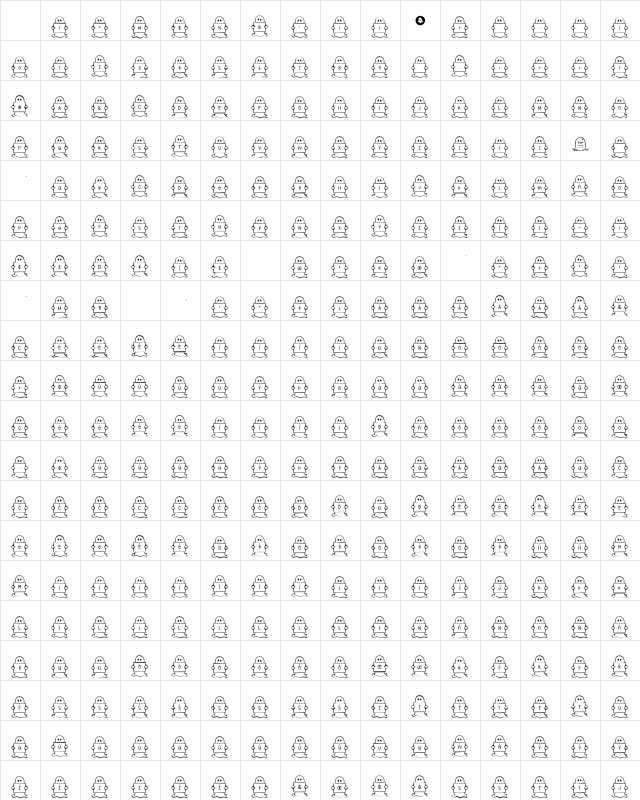
Complete SpookyGhostLetters Regular glyph index. Displaying only characters natively supported by SpookyGhostLetters Regular font.
SpookyGhostLetters is a composed and adaptable typeface that performs quietly and consistently across a wide range of design contexts.